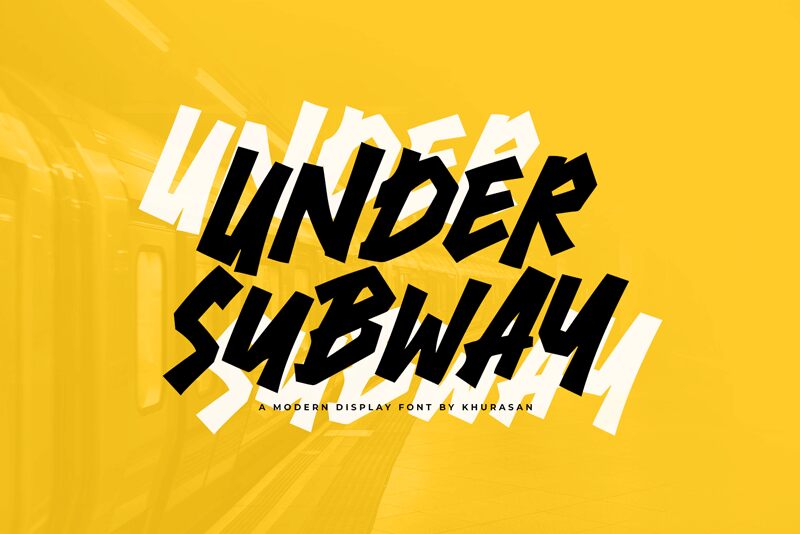
Under Subway
Under Subway, designed by Khurasan, is a modern bold display font that combines the playful styles of comic and graffiti.
Its unique design makes it perfect for a wide range of projects, such as posters, logos, magazines, book covers, and banners. With its quirky handwritten appearance, Under Subway adds a touch of personality to any design. Whether you're creating an eye-catching advertisement or designing an edgy album cover, this font will make your creations stand out from the crowd.
Explore the endless possibilities and let Under Subway bring your creative ideas to life!